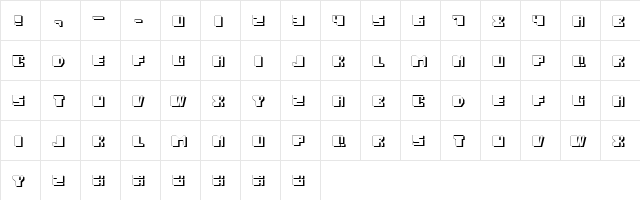
Salmiak Shadow Regular Font Preview
Salmiak Shadow Regular
Design Context for Salmiak Shadow Typeface
Salmiak Shadow is built around its visual character rather than neutral utility — its distinctive forms are designed to make an impression at display sizes.
Font Pairing: Pair with a clean neutral sans-serif for body copy to let Salmiak Shadow's character lead without overwhelming the composition.
Pro Tip: Use Salmiak Shadow exclusively at display sizes — it was designed to be seen, not read at length. Let a neutral companion handle body copy.